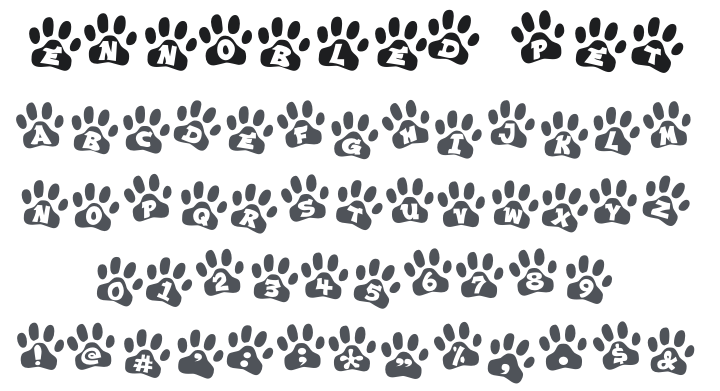
Ennobled Pet Font
About Ennobled Pet
Ennobled Pet is a charming novelty typeface where every letter is formed from animal paw prints — as if a cat or dog walked through an old-fashioned ink pad and then across the page. The result is utterly adorable and instantly recognizable. Perfect for pet store branding, veterinary signage, animal shelter materials, pet product packaging, and any design needing a warm, playful, animal-loving personality.